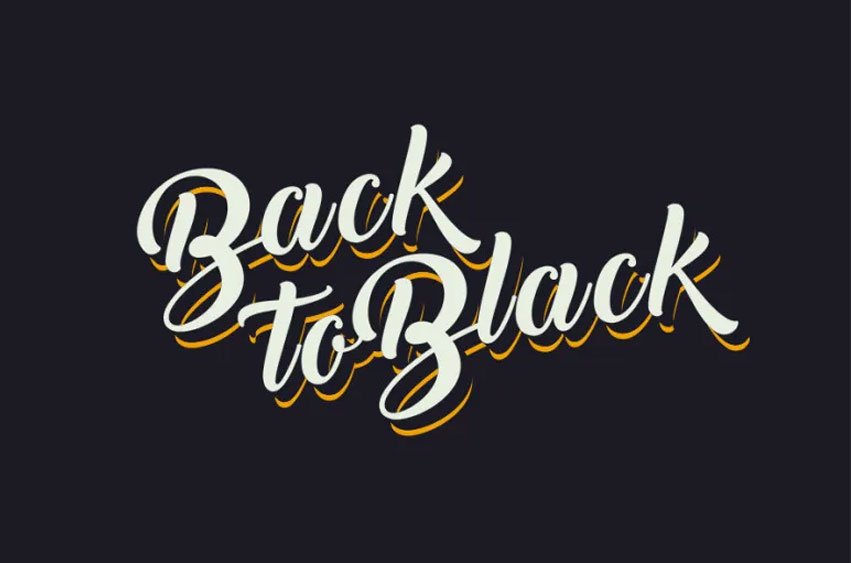
Back to Black Font
Back to Black Font is a new and modern script font that can help get your design noticed; All eyes on it!
This font can be very helpful and ideal for you for T-Shirt design, logo, posters, headlines and more!